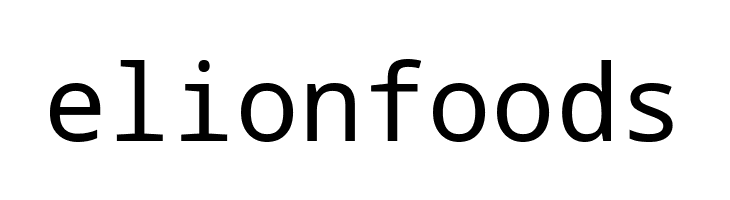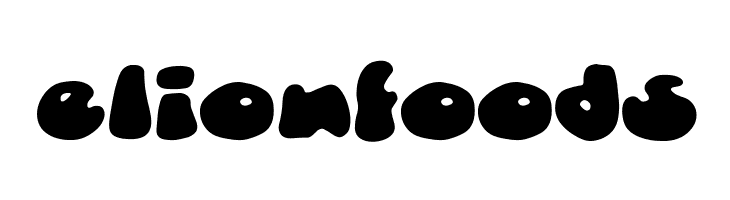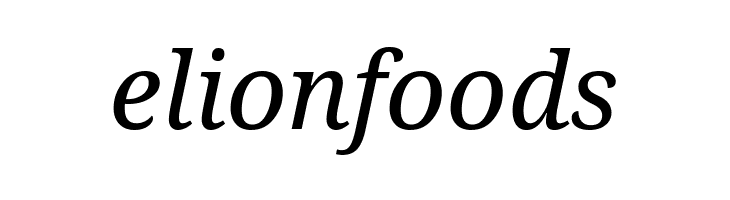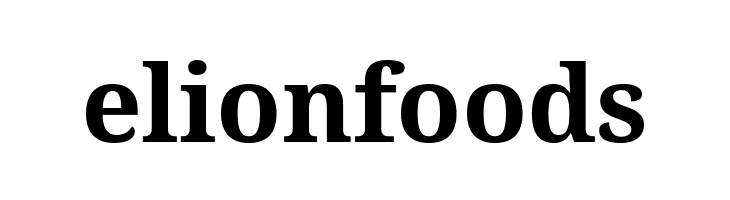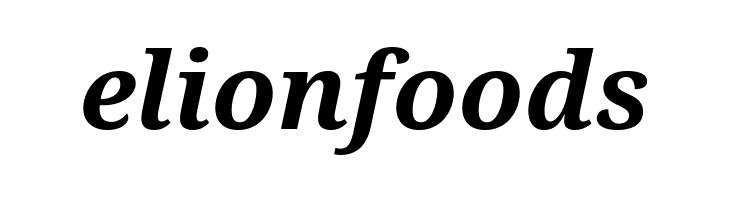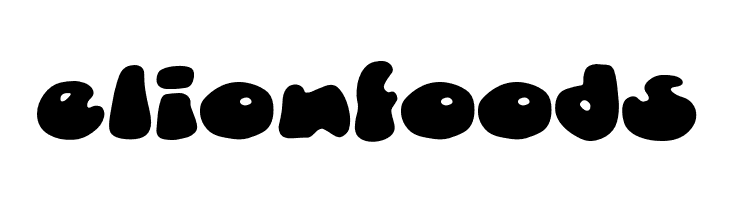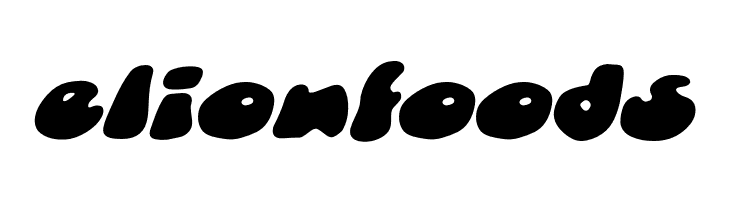
A clean, modern monospaced font ideal for coding and technical documents.
A clean, modern monospaced font ideal for coding and technical use.
A classic serif typeface with a modern touch, offering elegance and readability.
A bold serif typeface with strong strokes and elegant serifs, ideal for impactful text.
A bold, italic serif font with a classic yet modern appeal.
An elegant serif font with a classic italic slant and medium contrast.
A playful, bold font with thick, rounded characters and a whimsical style.
A bold, bubbly, and italic font with a playful, cartoonish style.
A bold, bubbly font with a playful and whimsical style.
A playful, bold, and bubbly font with a whimsical and dynamic style.